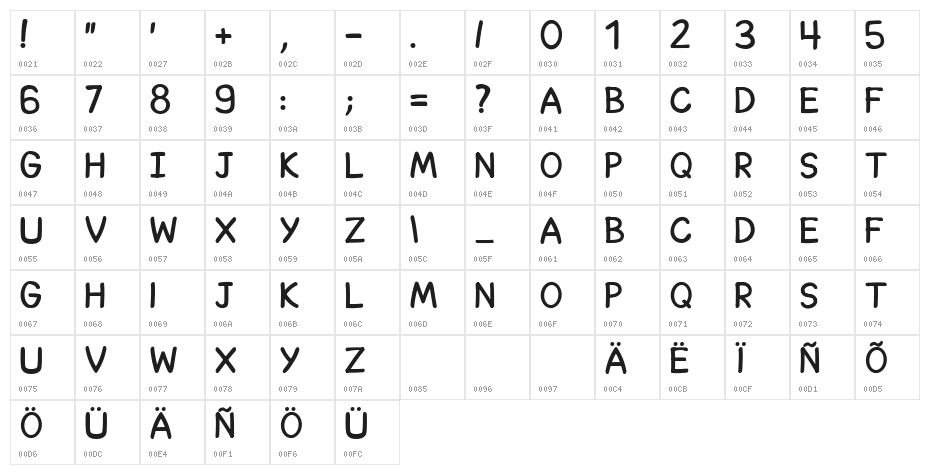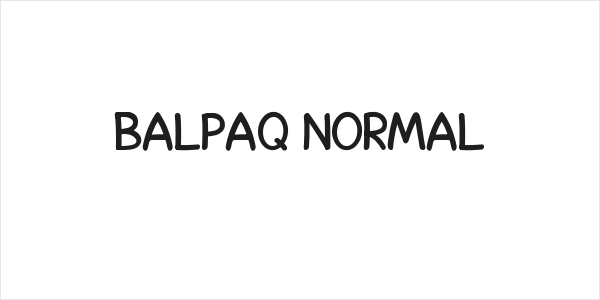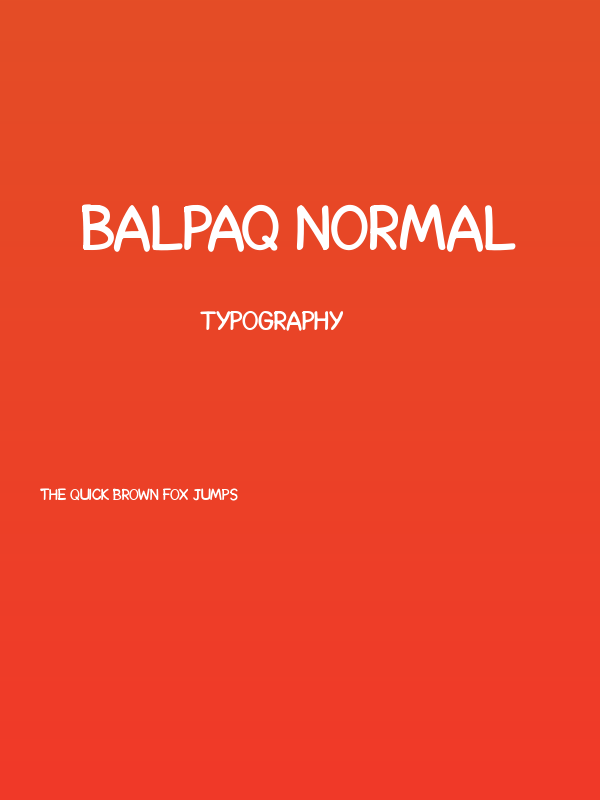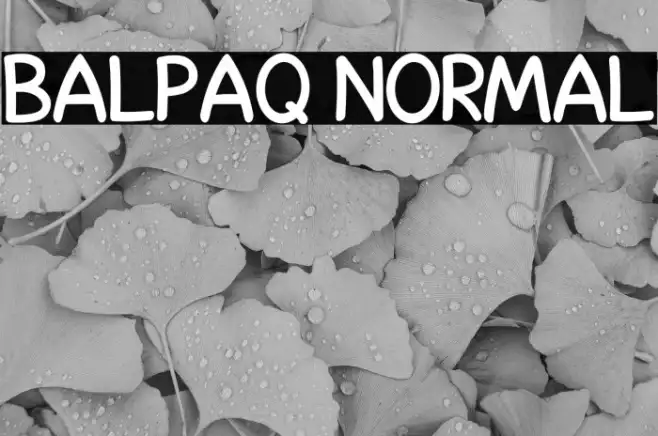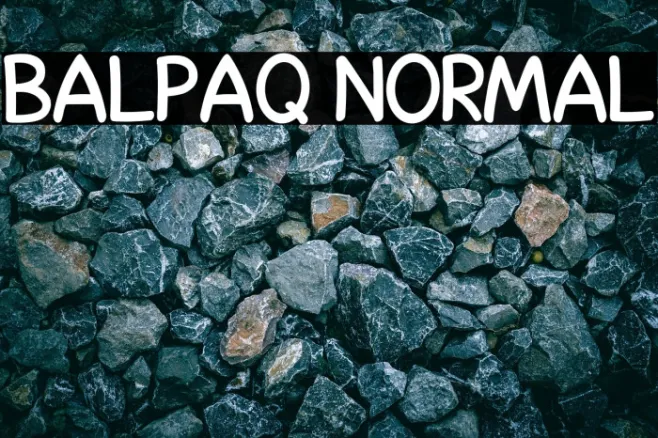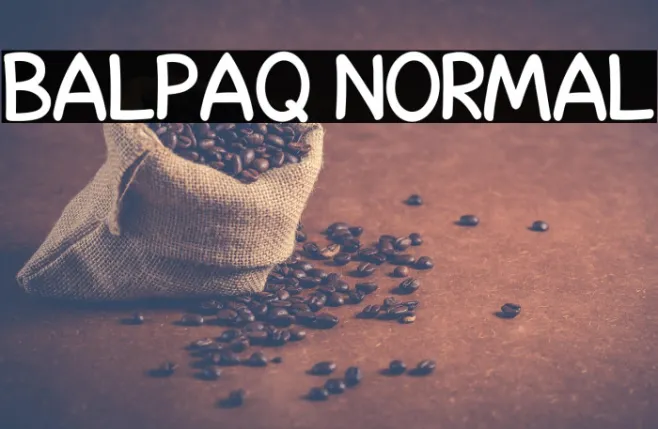
Balpaq Normal Font
Balpaq Normal Description
This font features a playful and rounded style with smooth curves and a friendly appearance. The letters are bold and slightly condensed, giving them a compact yet approachable look. The uniform stroke width and rounded terminals contribute to its casual and informal vibe. The numbers and special characters maintain the same playful aesthetic, making the font suitable for a variety of creative applications. Its legibility and charm make it ideal for projects that require a touch of whimsy and approachability.
| Proposed Projects | Children's books, playful branding, casual invitations, and educational materials. |